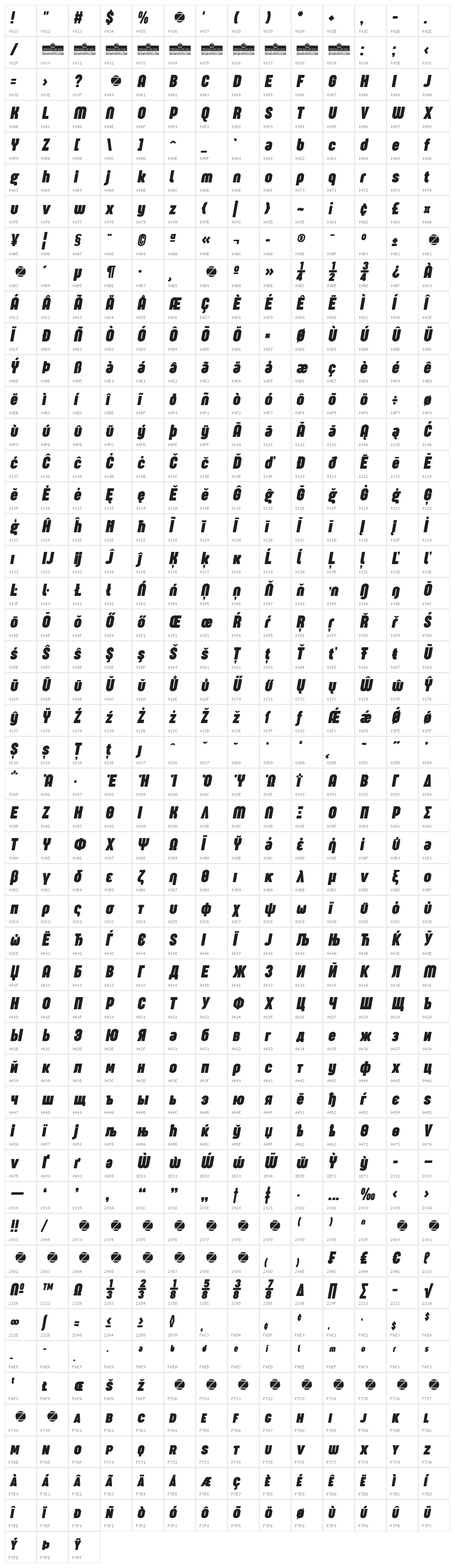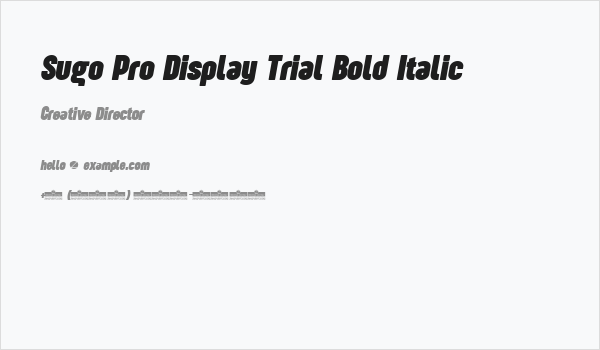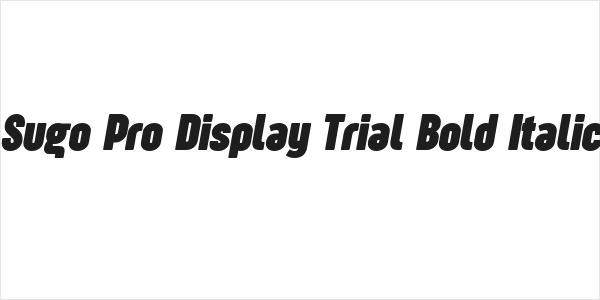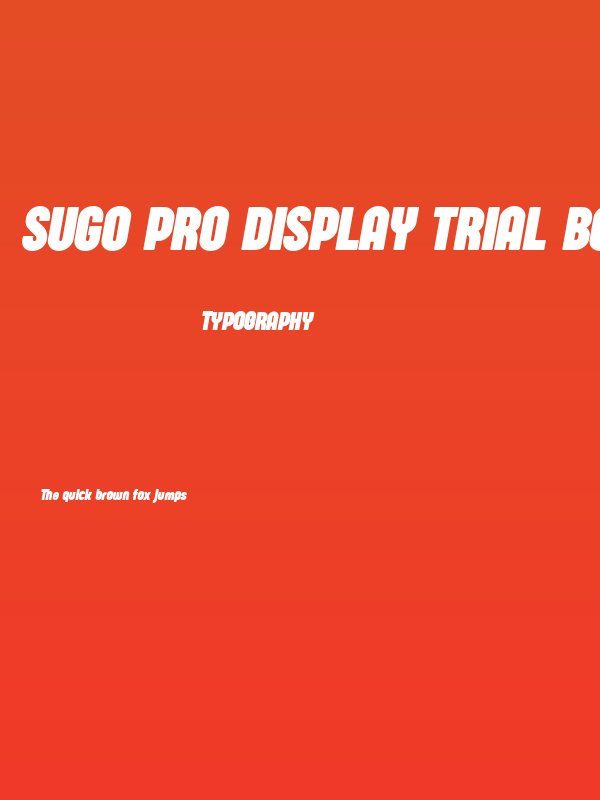
Sugo Pro Display Trial Bold Italic Font
Sugo Pro Display Trial Bold Italic Description
This bold and italic typeface exudes a modern and dynamic feel, characterized by its thick, robust strokes and slightly condensed letterforms. The font's design features a strong geometric influence, with a slight slant that adds a sense of motion and energy. The uppercase letters are bold and commanding, while the lowercase letters maintain a consistent weight, ensuring readability. The numerals and special characters are designed to match the overall boldness, making them stand out effectively. This typeface is ideal for projects that require a strong visual impact, such as branding, advertising, and headlines.
| Proposed Projects | Ideal for branding, advertising, headlines, and any project needing a strong visual impact. |